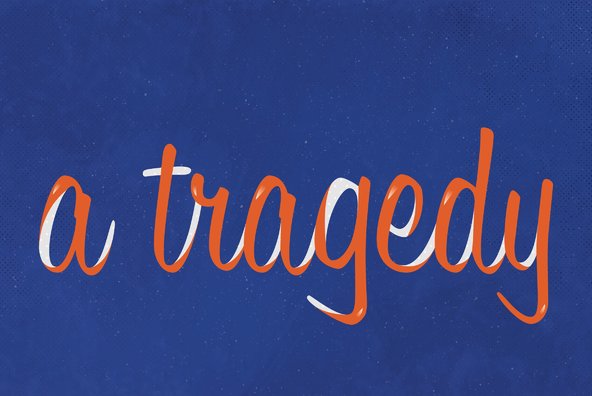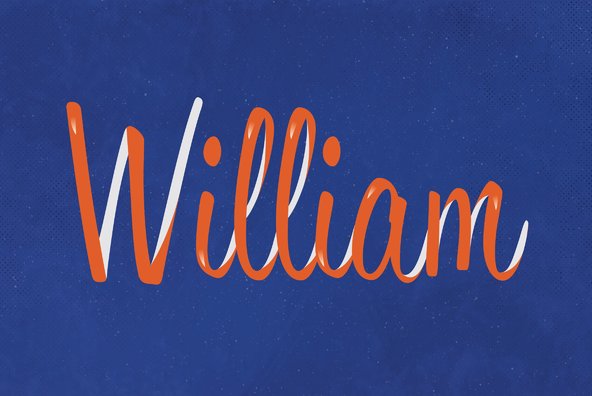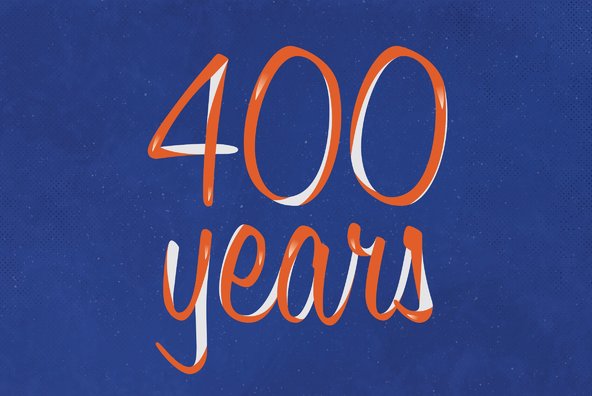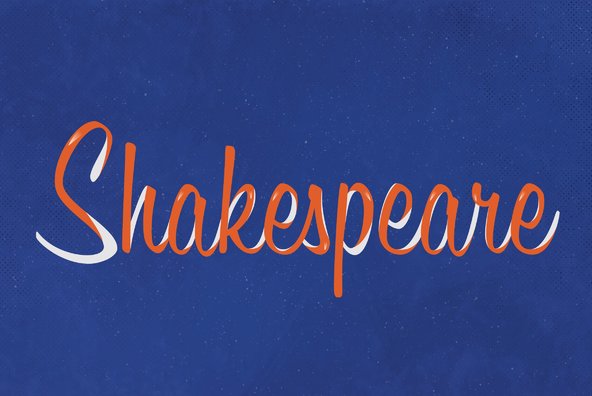
Filmotype Hamlet
Foundry: Filmotype
Filmotype Hamlet was released by Filmotype in 1955 as a condensed version of it’s first connecting script face Filmotype Harmony originally designed by Ray Baker. Filmotype regularly created derivative styles and weights of its typefaces as its customers requested new styles for their typesetting work.
Filmotype Hamlet was developed from the original font filmstrips and includes a full international character compliment, automatic fractionals, ordinals, and a large set of automatic alternate contextual characters and ligatures to allow flawless typesetting in dynamic OpenType format.